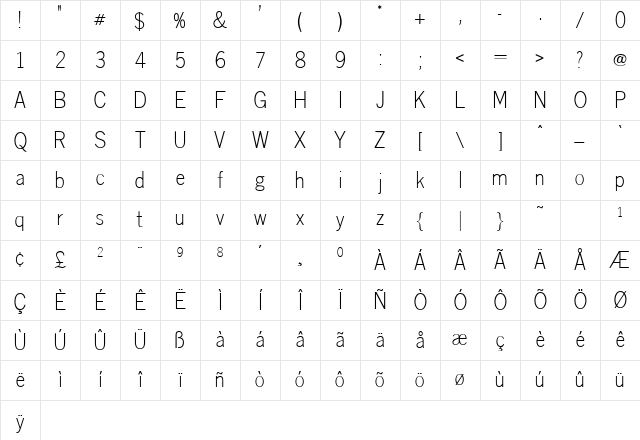
Lufton Regular
Design Context for Lufton
Lufton is a composed and adaptable typeface that performs quietly and consistently across a wide range of design contexts.